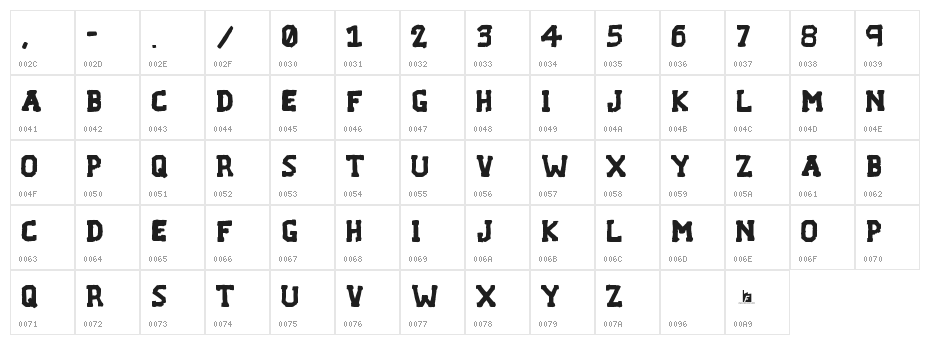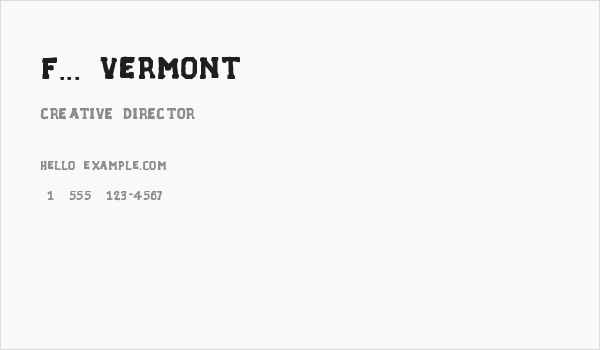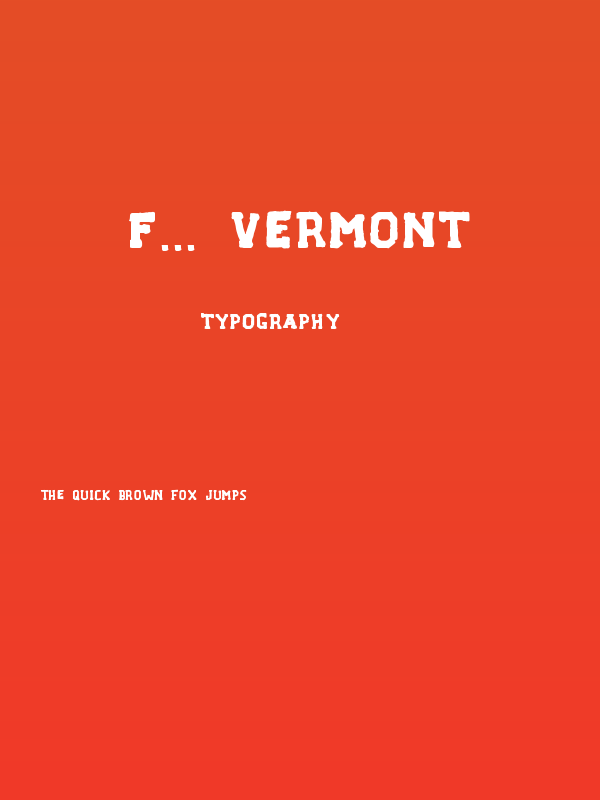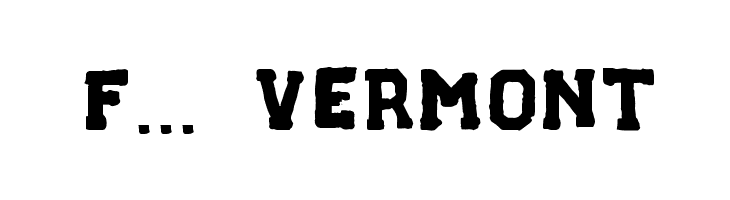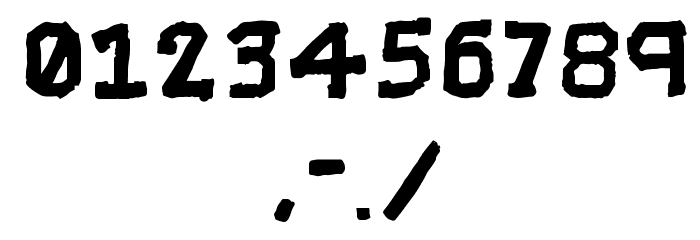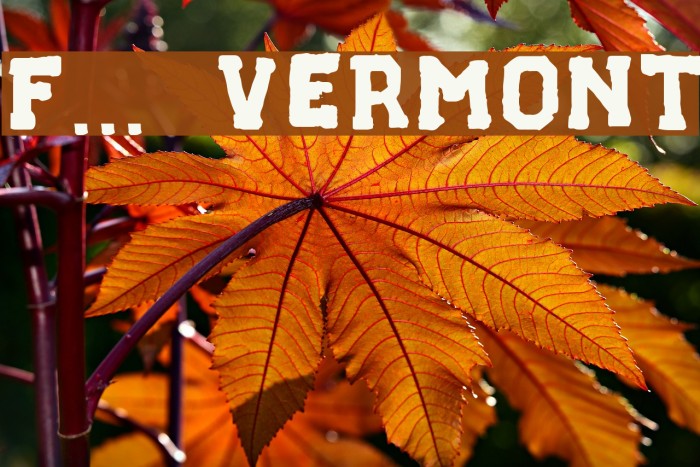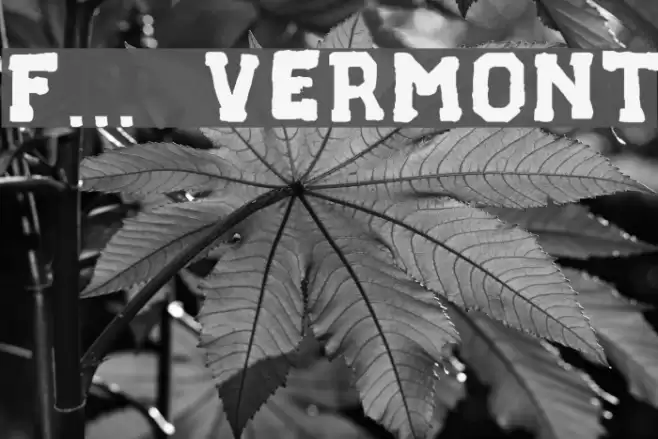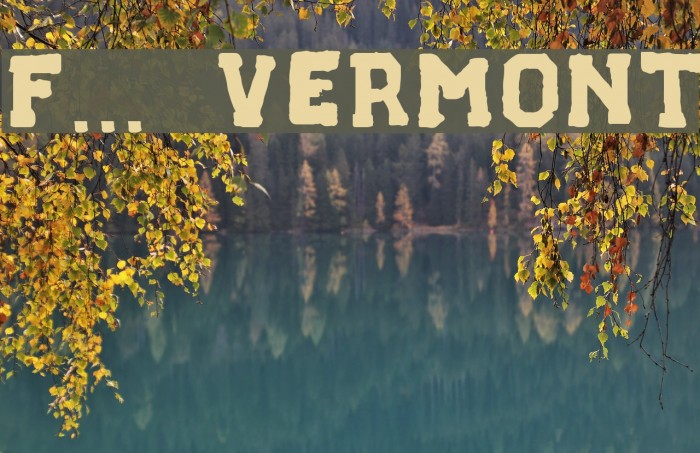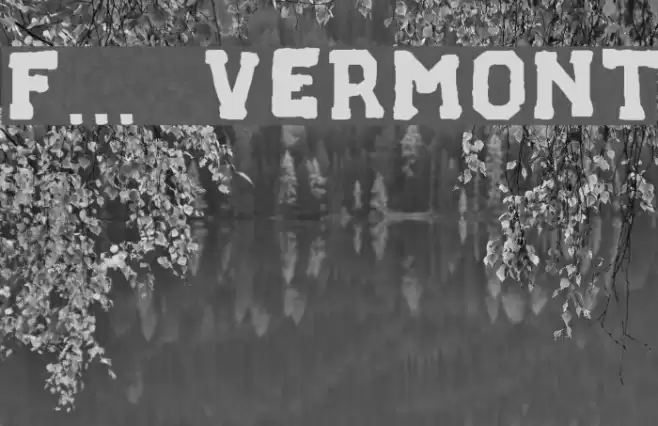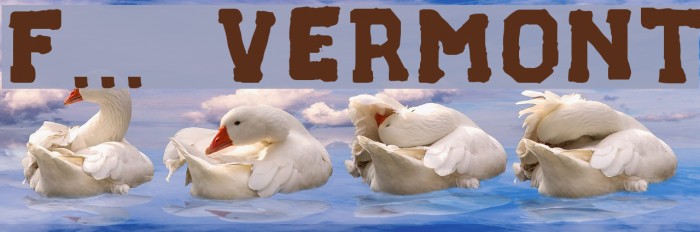
F... VERMONT Font
F... VERMONT Description
This font features a bold and rugged style with a hand-drawn appearance, characterized by uneven edges and a slightly distressed look. The uppercase letters are prominent and sturdy, conveying a sense of strength and durability. The numbers and special characters maintain the same boldness, ensuring consistency throughout. Its unique texture and irregularities give it a handcrafted feel, making it suitable for projects that require a rustic or vintage touch. The font's distinct personality makes it stand out, ideal for creative and artistic designs.
| Overall Style | Vintage |
| Use Case | Logos, Headlines, Posters |
| Proposed Projects | Ideal for posters, logos, branding, and packaging that require a rustic or vintage aesthetic. |